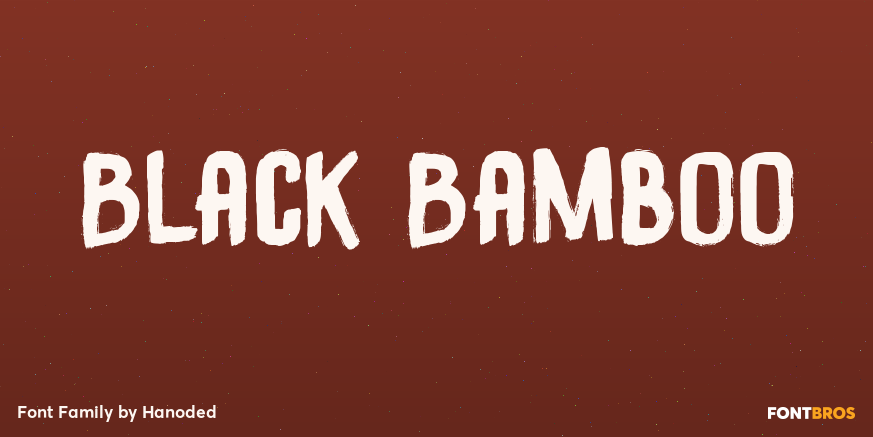
About Black Bamboo
Black Bamboo is a beautiful plant. My father in law, who recently passed away, loved it and had a prized specimen growing in his garden. This font was named in his honour. Black Bamboo font is a bold typeface, created using a good brush and quality paint.…